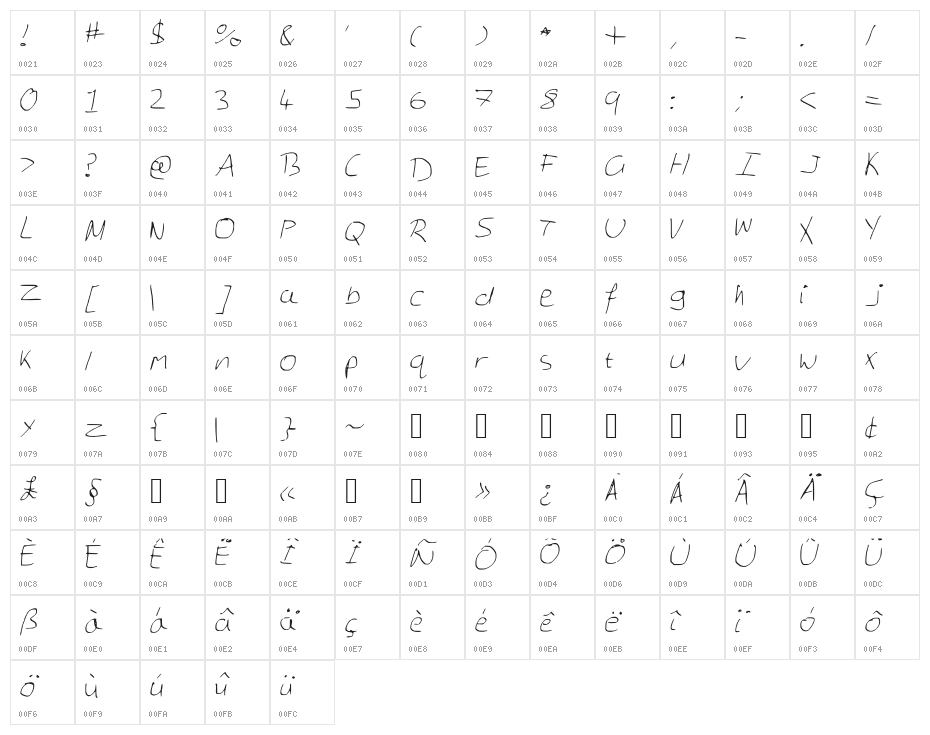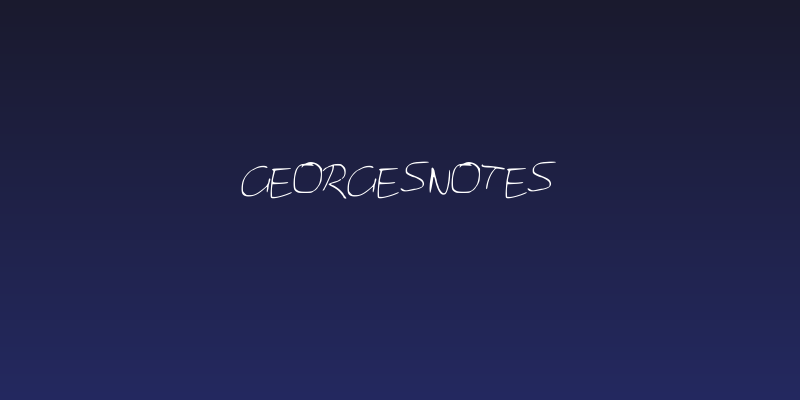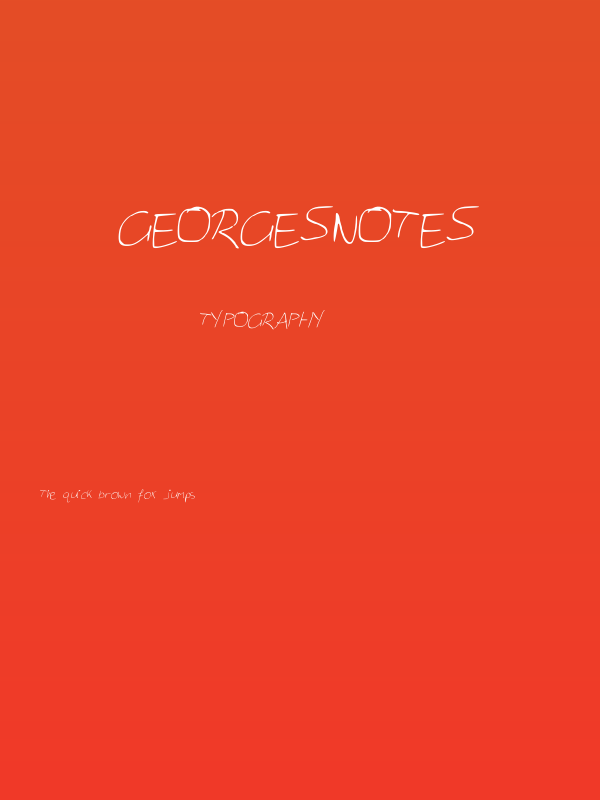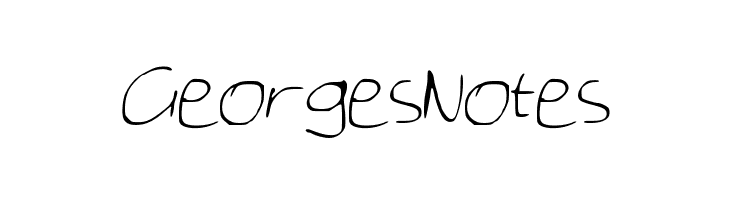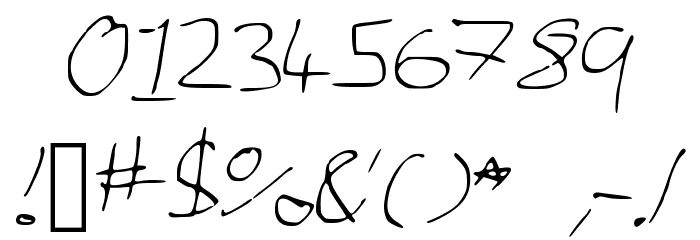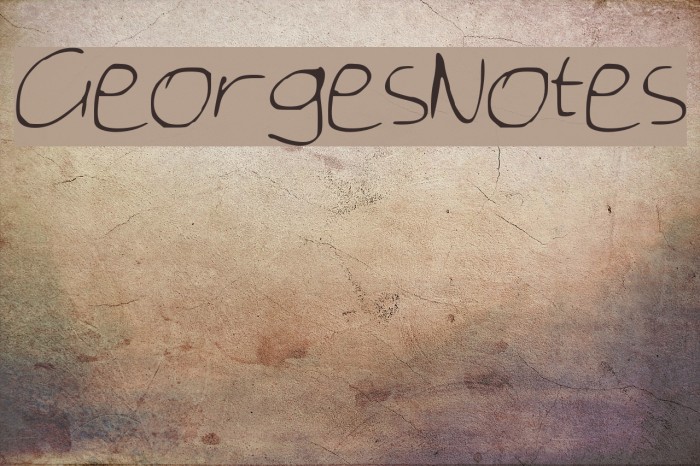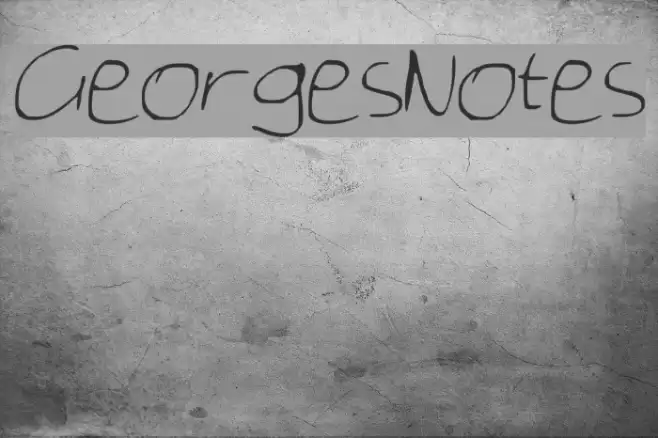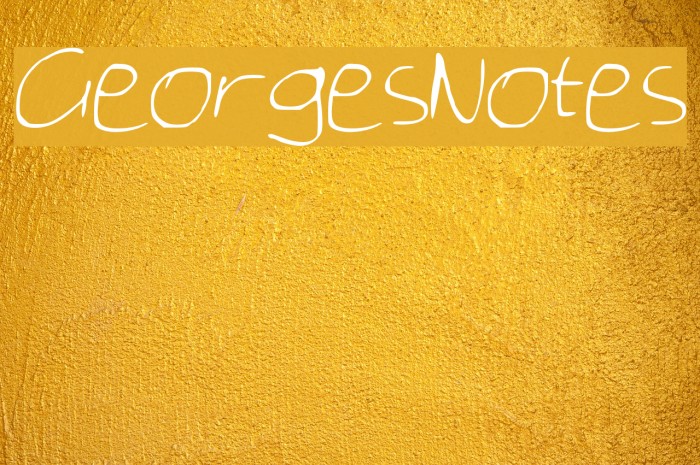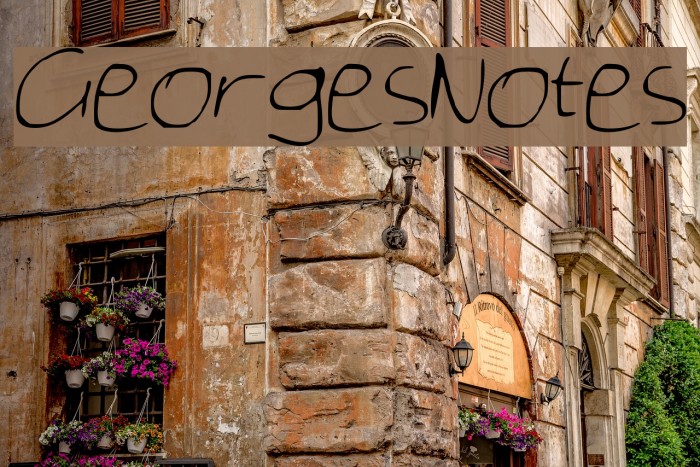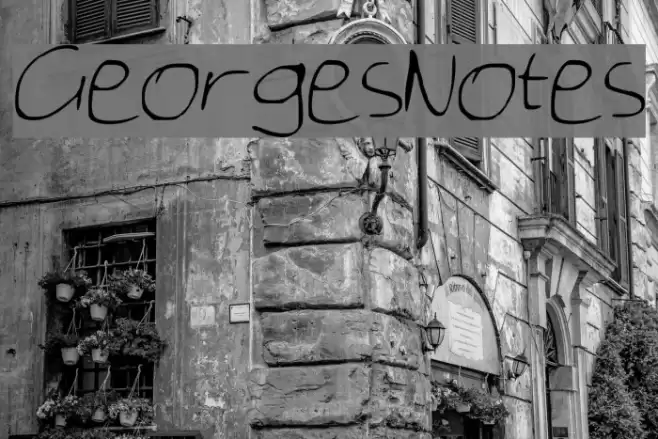
GeorgesNotes Font
GeorgesNotes Description
This font exudes a casual, handwritten style that mimics the natural flow of penmanship. The characters are slightly slanted, giving a dynamic and personal touch. The strokes are uneven, adding to the authenticity of a handwritten note. Uppercase and lowercase letters maintain a consistent style, with playful loops and curves. The numerals and special characters are crafted with the same informal flair, making the font suitable for projects that require a personal or informal tone. The overall appearance is approachable and friendly, perfect for conveying warmth and personality.
| Overall Style | Casual, Personal |
| Use Case | Personal notes, Invitations, Greeting cards |
| Proposed Projects | Ideal for personal notes, invitations, greeting cards, and informal branding. |